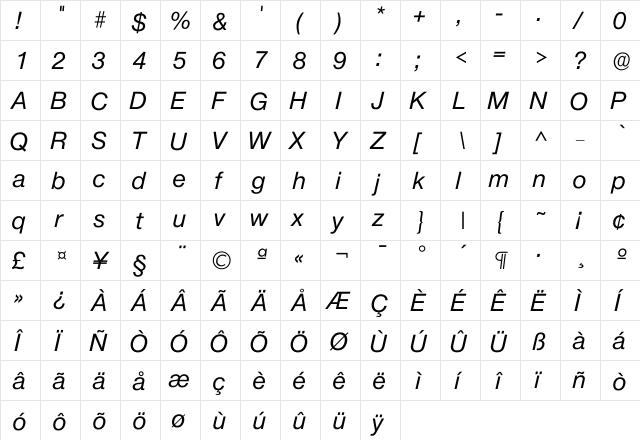
Iolnova Medium
Design Context for Iolnova Typeface
Iolnova takes a measured approach to typography — its balanced proportions and neutral character make it a reliable workhorse for both digital and print work.
Pro Tip: Use Iolnova in both headline and body roles to test its range before committing to a single application.